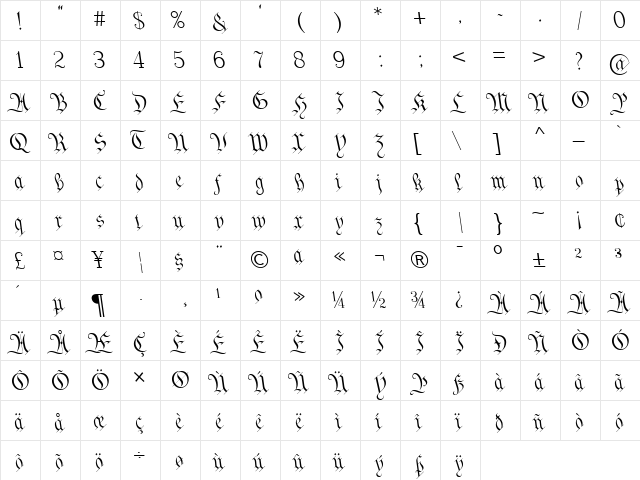
We The People Regular
| Designer | Keith Bates |
| Copyright | We The People by Keith Bates 021 https://www.k-type.com This font is extrapolated from the We the People calligraphy of the handwritten US Constitution Preamble. |
Design Context for We The People Typeface
We The People is a composed and adaptable typeface that performs quietly and consistently across a wide range of design contexts.